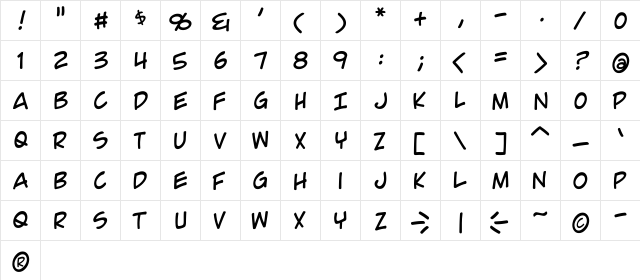
Comic Geek Regular
Design Context for Comic Geek Typeface
Comic Geek trades formality for fun, with bouncy, characterful letterforms that bring warmth and energy to any project.
Font Pairing: Pairs well with a rounded or humanist sans for body copy, maintaining the friendly tone without relying on Comic Geek to carry extended reading.
Pro Tip: Avoid using Comic Geek for long passages of text — it works best for headlines, labels, and short calls to action.